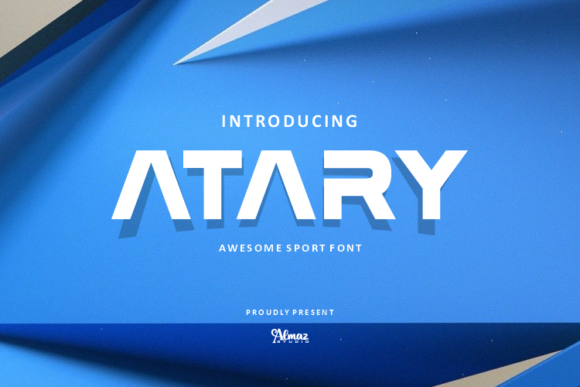
Enter the realm of typographic sorcery with Atary Font, a display font that casts a spellbinding aura on your designs. Its bold and modern strokes evoke a futuristic charm, sending your creations soaring into the realm of the extraordinary.
Unleash your imagination and let Atary Font weave its magic across web designs, business cards, and any canvas that yearns for a touch of modernity. This font is a master of versatility, seamlessly adapting to your creative vision, whether it's crafting an otherworldly website or leaving a lasting impression with a sleek business card.
Atary Font possesses a captivating personality, instilling a sense of intrigue and boldness into every word it adorns. Its unique letterforms, reminiscent of a mystical incantation, will cast a spell on your audience, leaving them captivated by your designs.
As you type with Atary Font, feel the surge of creative energy coursing through your veins. Its effortless flow and flawless readability make it a joy to use, allowing your thoughts to dance across the screen with grace and precision. Prepare to be mesmerized as your designs transform into captivating works of art, leaving an indelible mark on the minds of those who behold them.
With Atary Font as your secret weapon, you'll unlock a world of design possibilities. Let its bold strokes and futuristic allure transport your creations to new heights of brilliance. Embrace the magic of Atary Font and watch as your designs take on a life of their own.